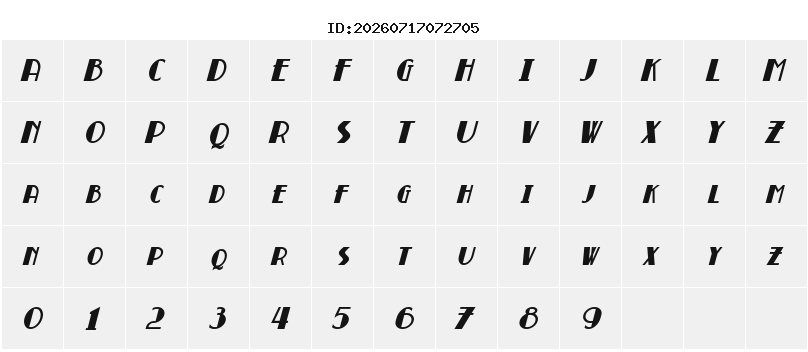
• Font Name: Broadmoor
• Designer: Neale Davidson
About Broadmoor.otf
Broadmoor.otf is a modern, elegant sans-serif font designed for ultimate readability and visual harmony. Perfect for branding, headlines, web design, and print materials.